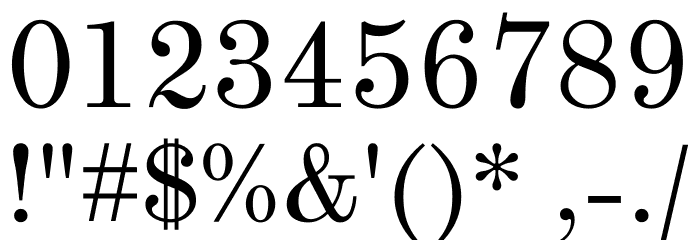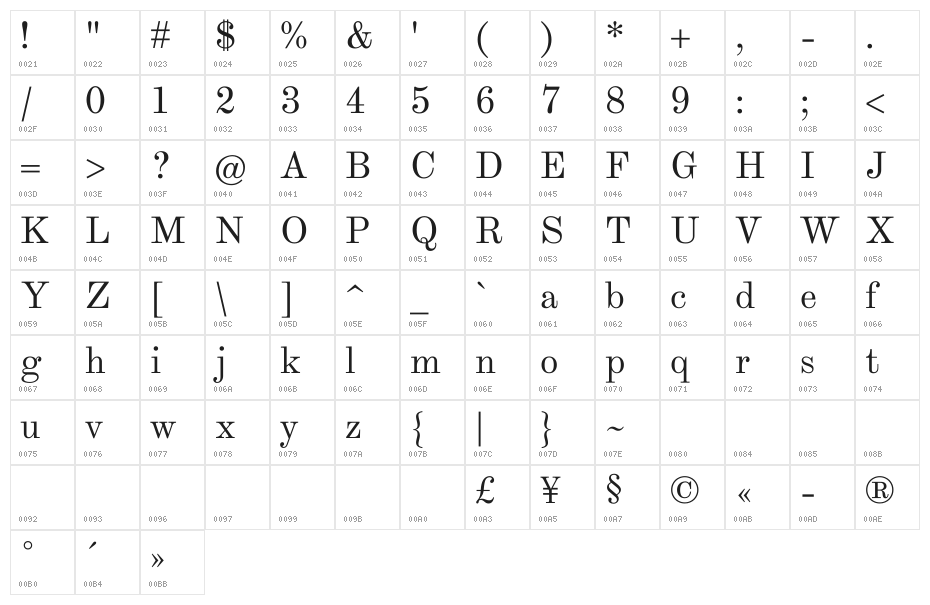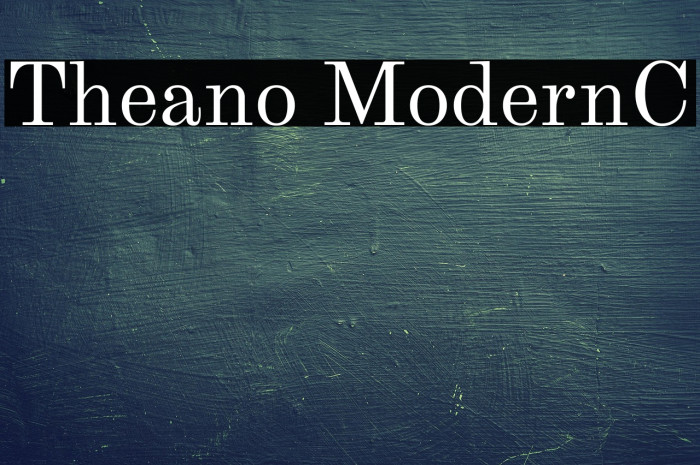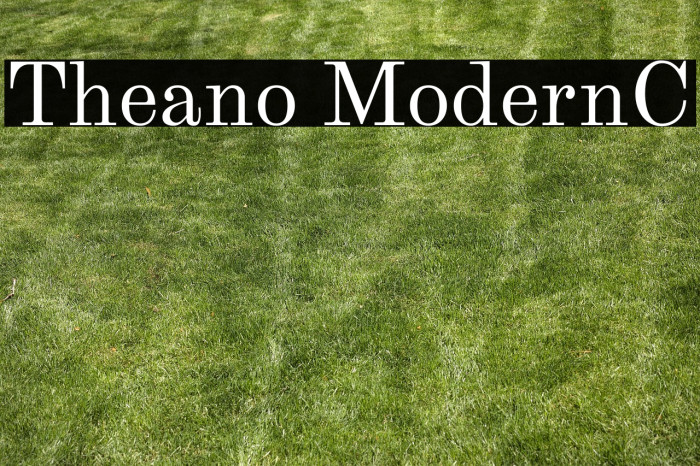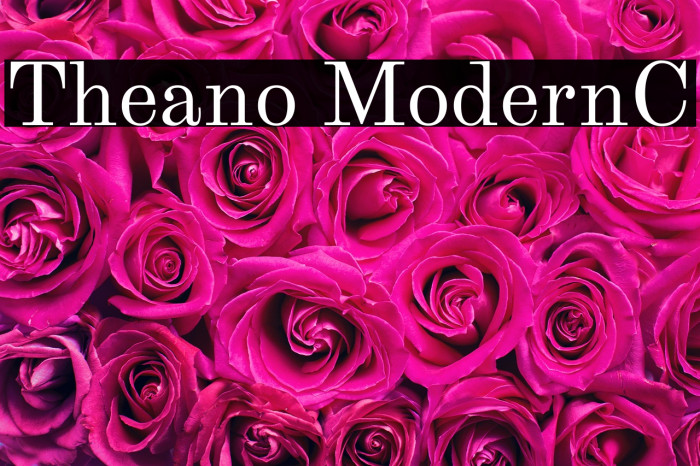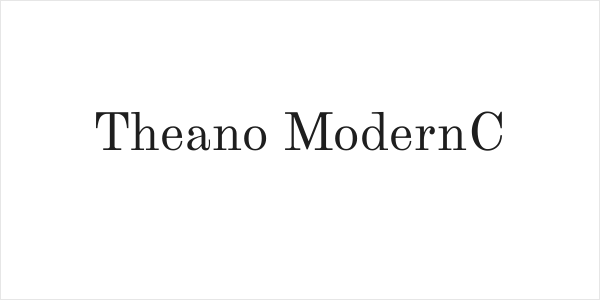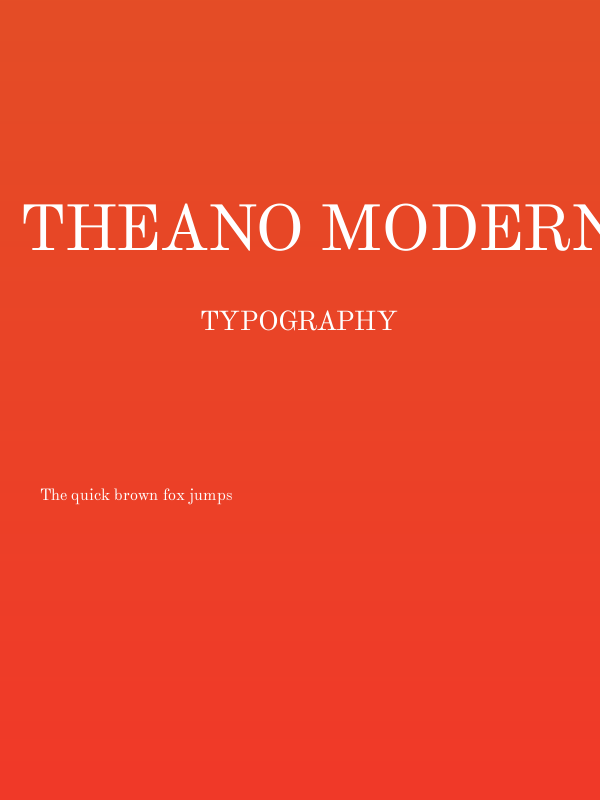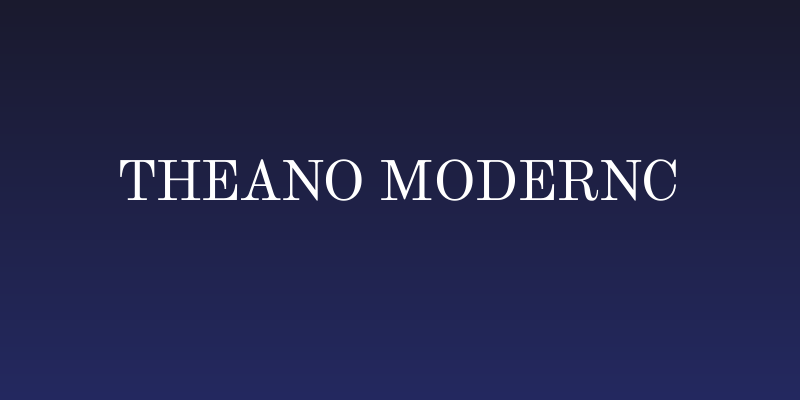
Theano ModernC Font
Theano ModernC Description
This font features a classic serif style with elegant and refined strokes. The uppercase letters are bold and commanding, while the lowercase letters maintain a balanced and harmonious appearance. The numerals are clear and distinct, making them easily readable. Special characters are designed with a consistent style, integrating seamlessly with the rest of the font. The overall design is reminiscent of traditional serif fonts, yet it maintains a modern touch, making it versatile for various applications.
| Proposed Projects | Ideal for editorial design, book covers, formal invitations, and branding projects that require a touch of elegance. |